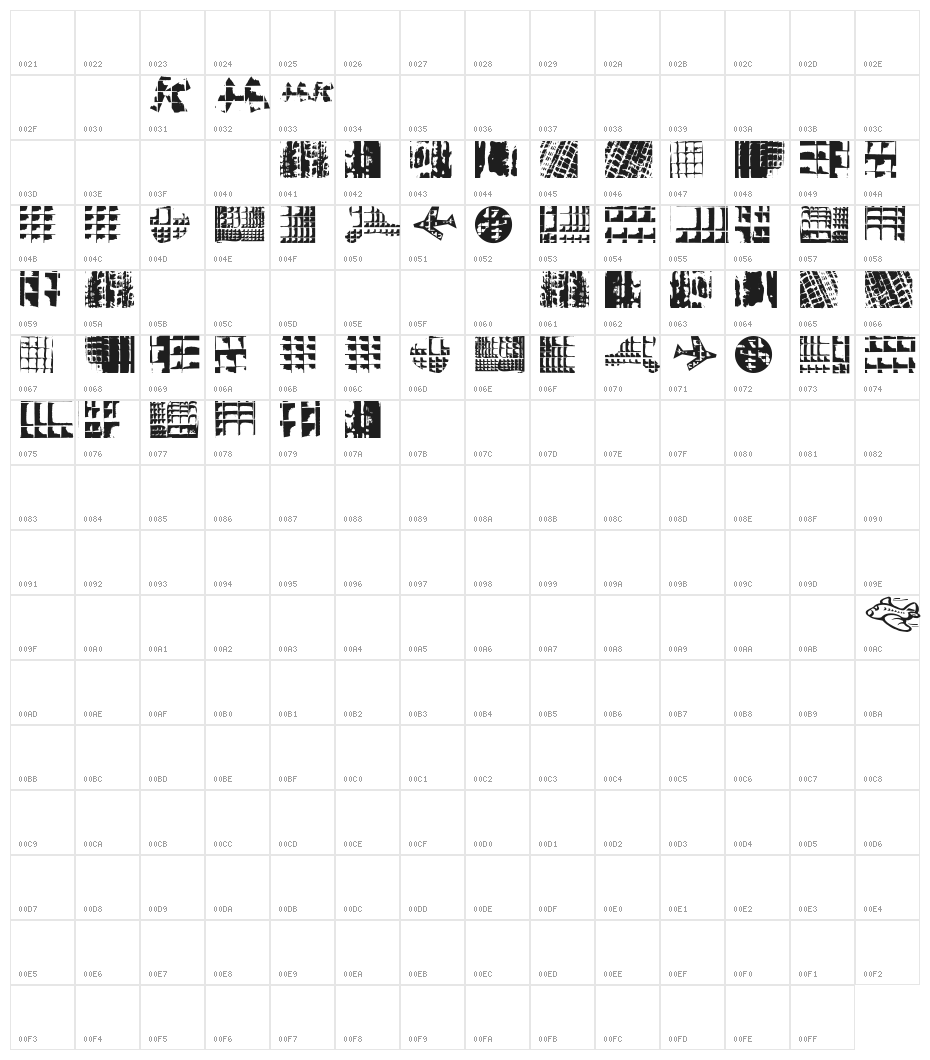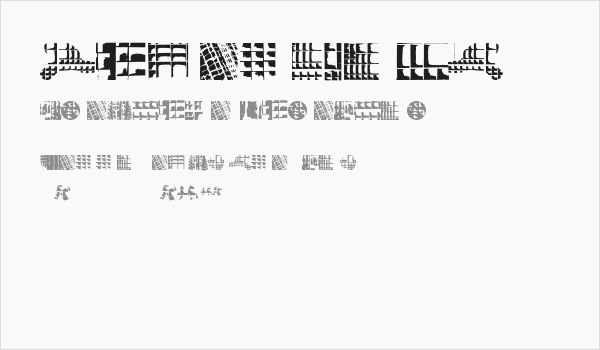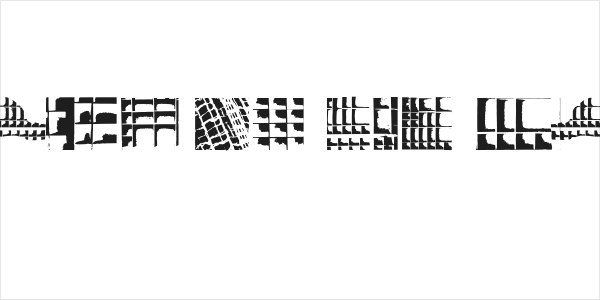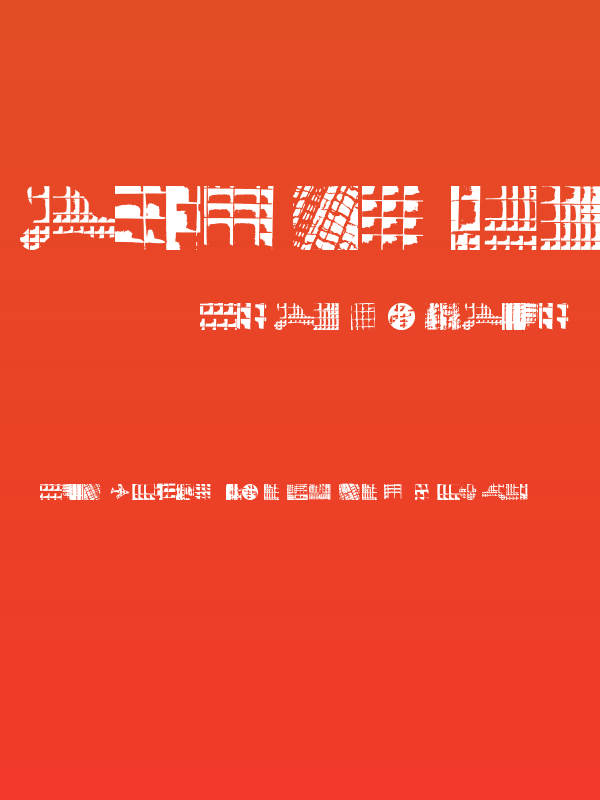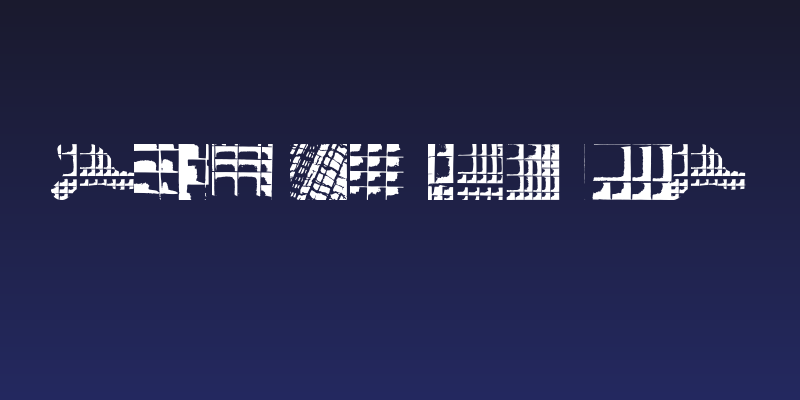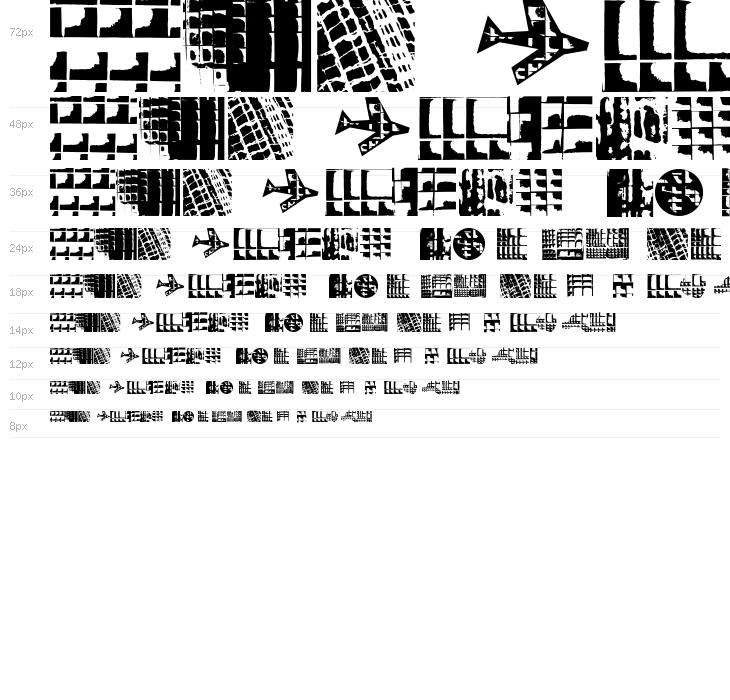
Pixelsoup Font
This font features a highly abstract and fragmented design, resembling a digital glitch or a pixelated distortion. Each character is composed of irregular shapes and patterns, creating a chaotic yet intriguing visual effect. The font's unique style makes it stand out, with each letter appearing as if it has been deconstructed and reassembled in a non-linear fashion. The overall appearance is reminiscent of digital art or experimental typography, making it suitable for projects that aim to convey a sense of modernity and innovation.
| Use Case | Logos, Headlines, Artistic projects |
| Proposed Projects | Ideal for digital art projects, experimental designs, modern posters, and innovative branding. |